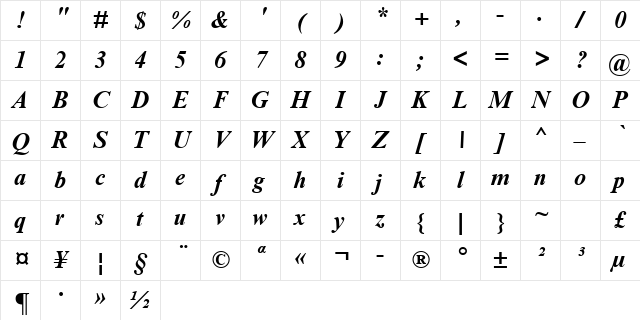
Times New Roman Greek Bold Inclined
Style: Bold Inclined
Complete Times New Roman Greek Bold Inclined glyph index. Displaying only characters natively supported by Times New Roman Greek Bold Inclined font.
Design Context for Times New Roman Greek
Times New Roman Greek is a composed and adaptable typeface that performs quietly and consistently across a wide range of design contexts. Its bold stroke weight gives it real presence on the page.